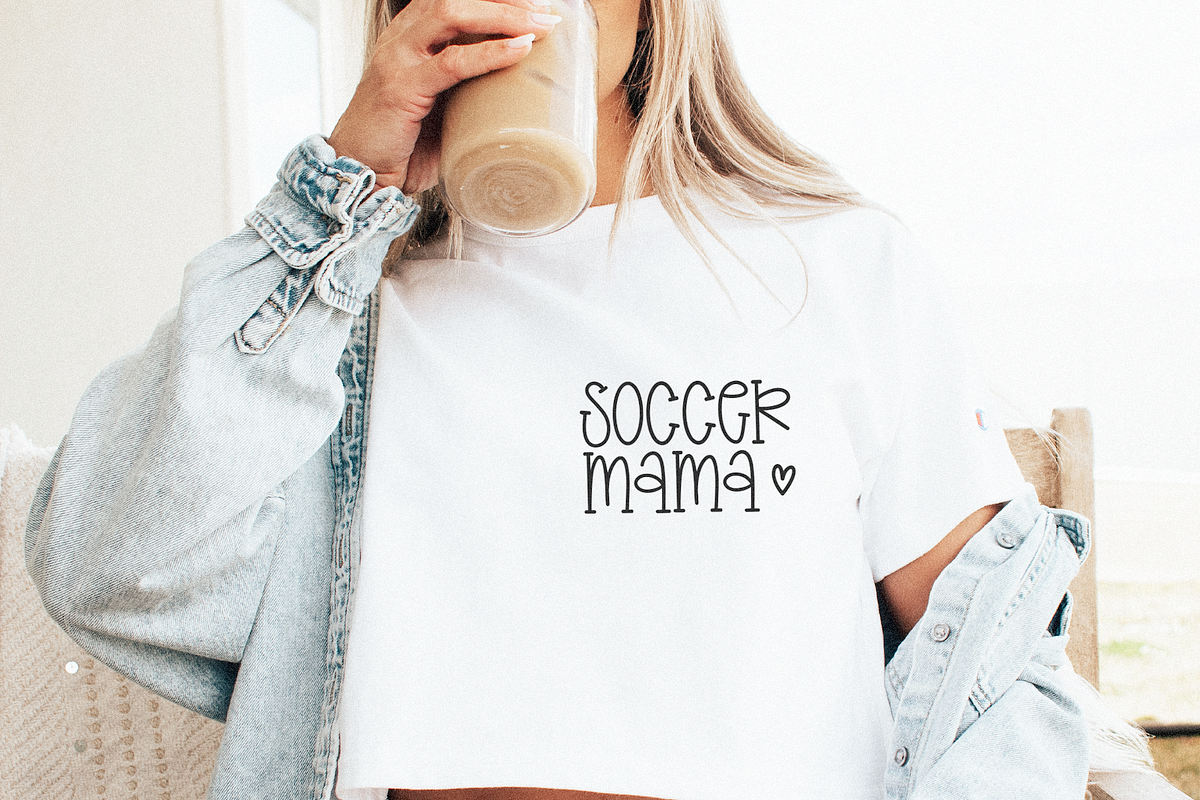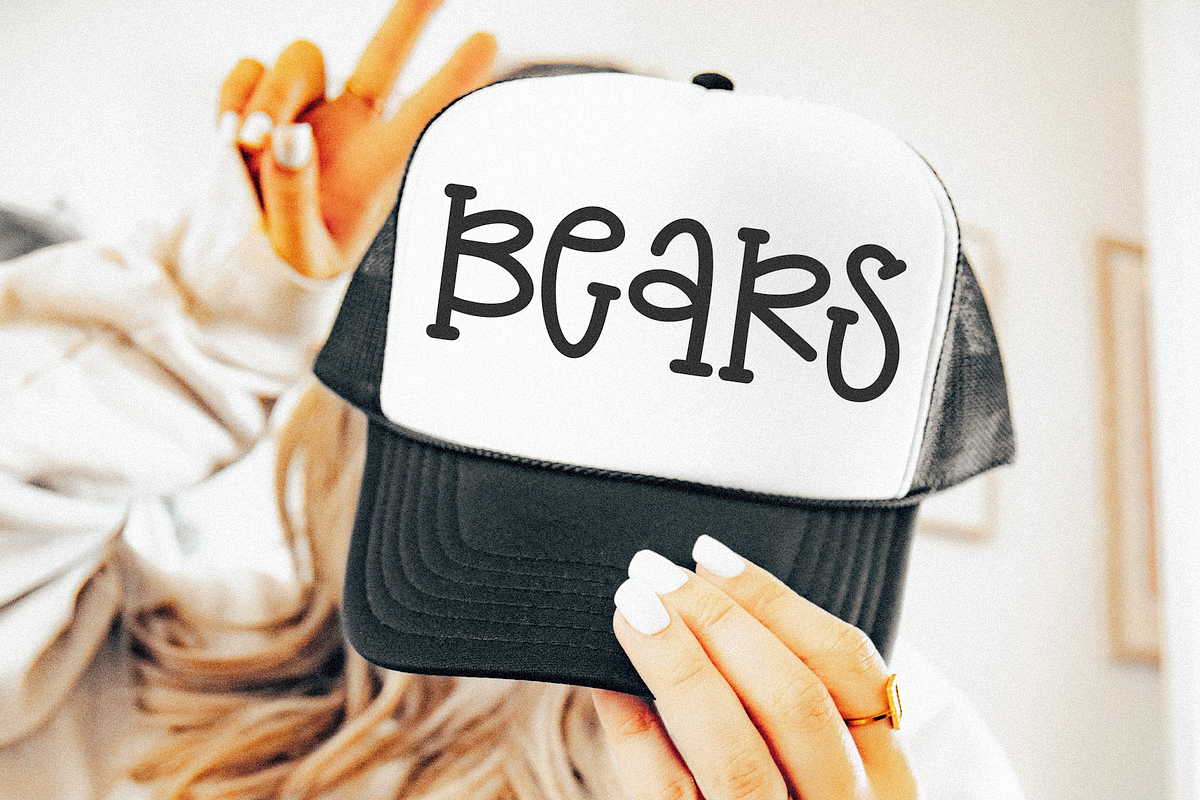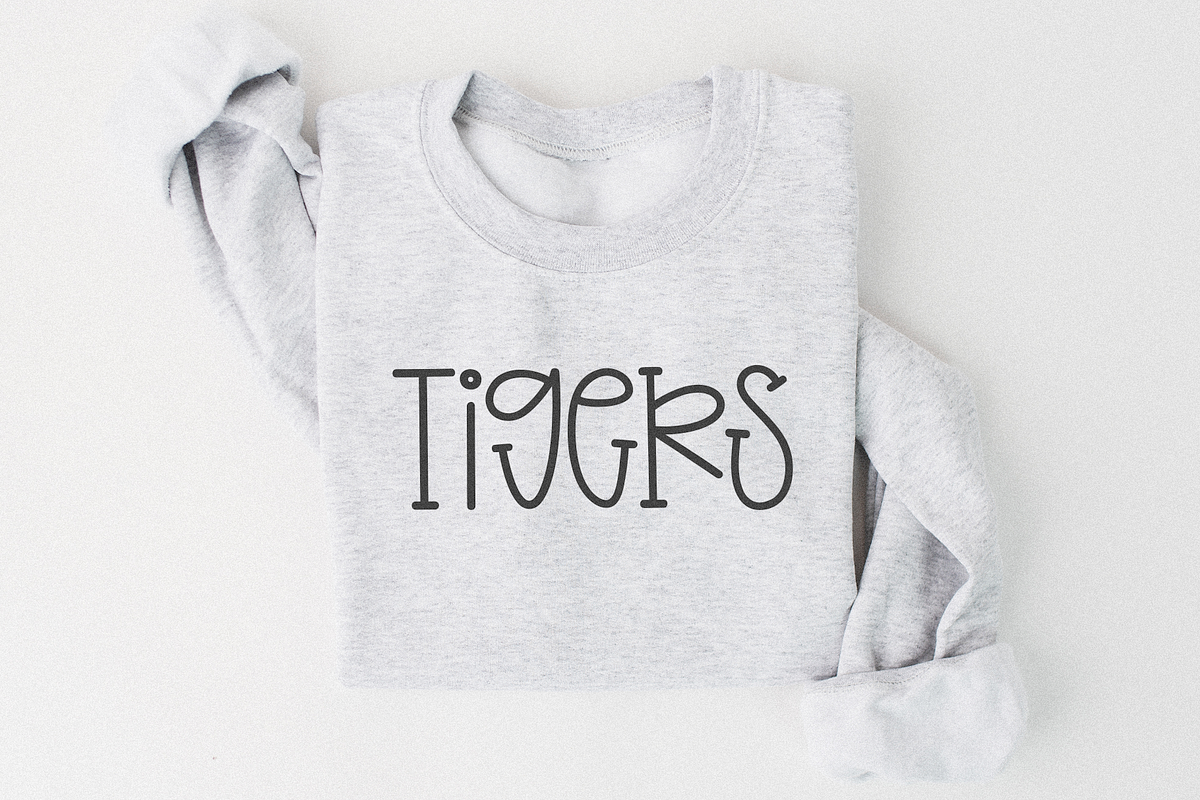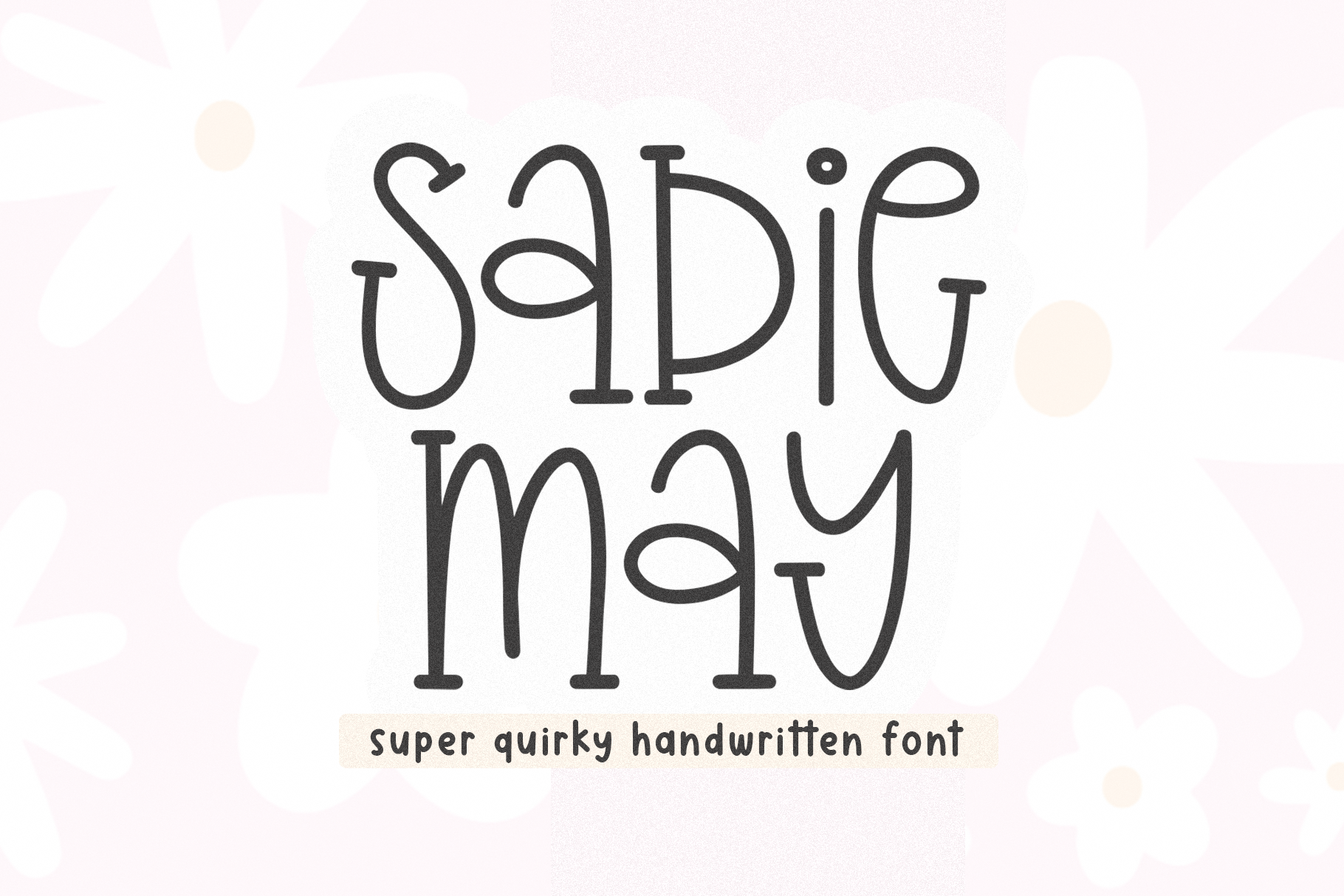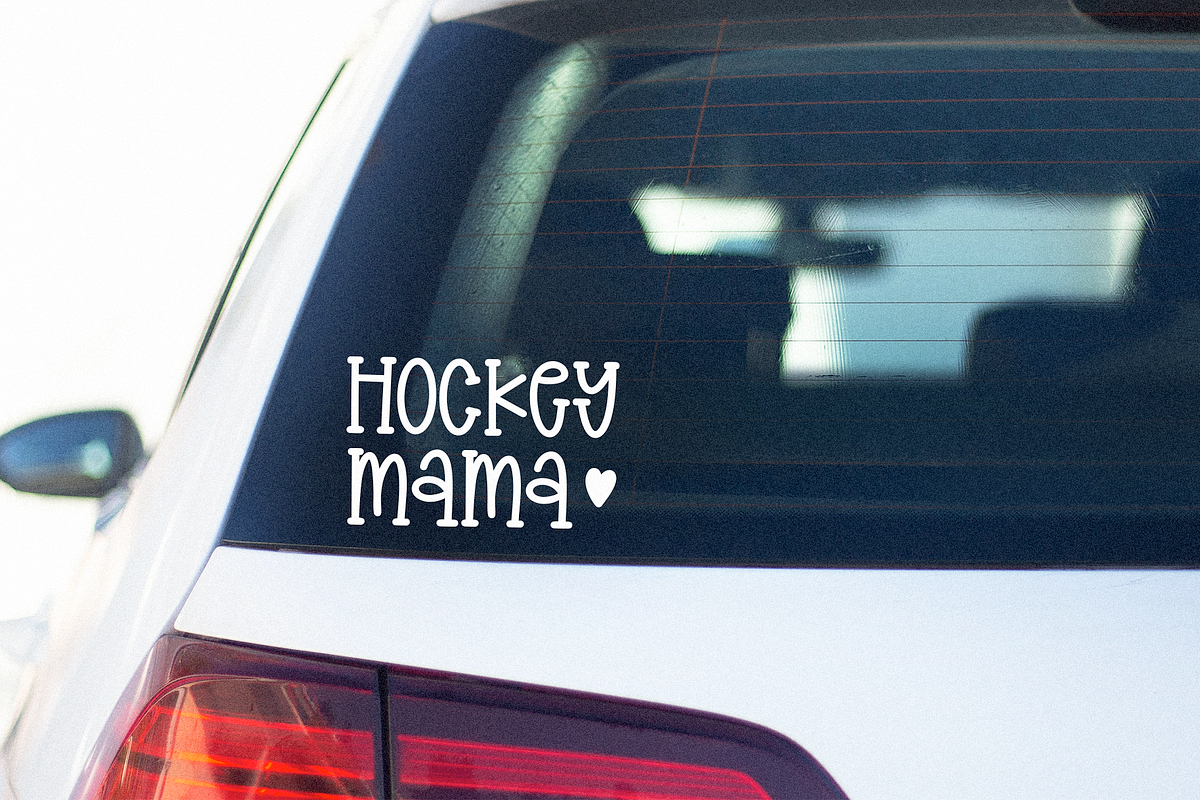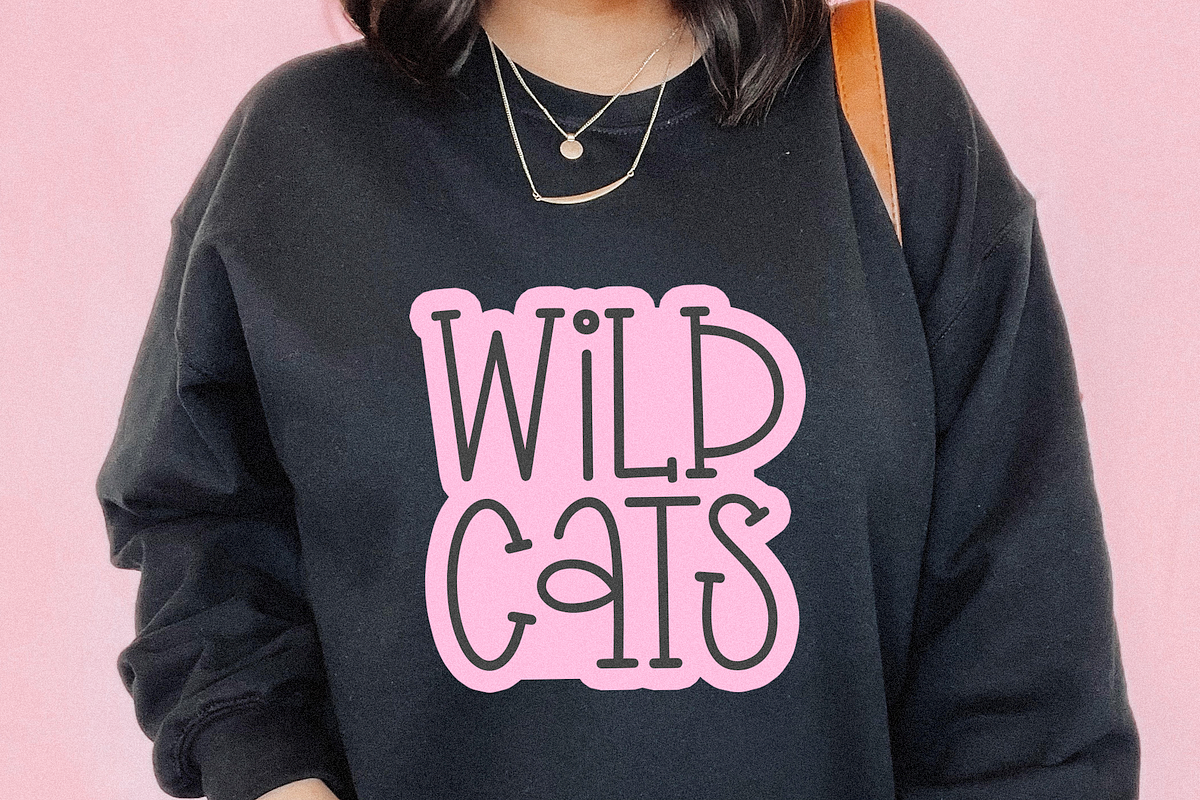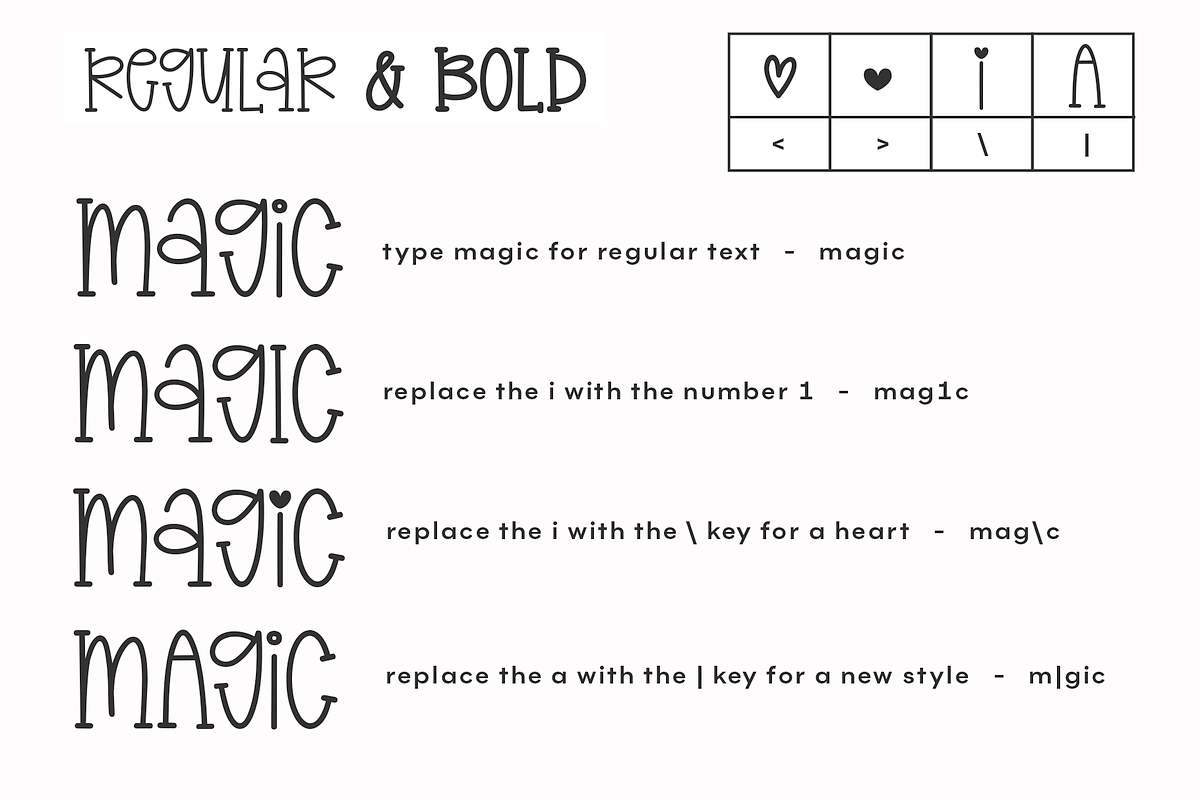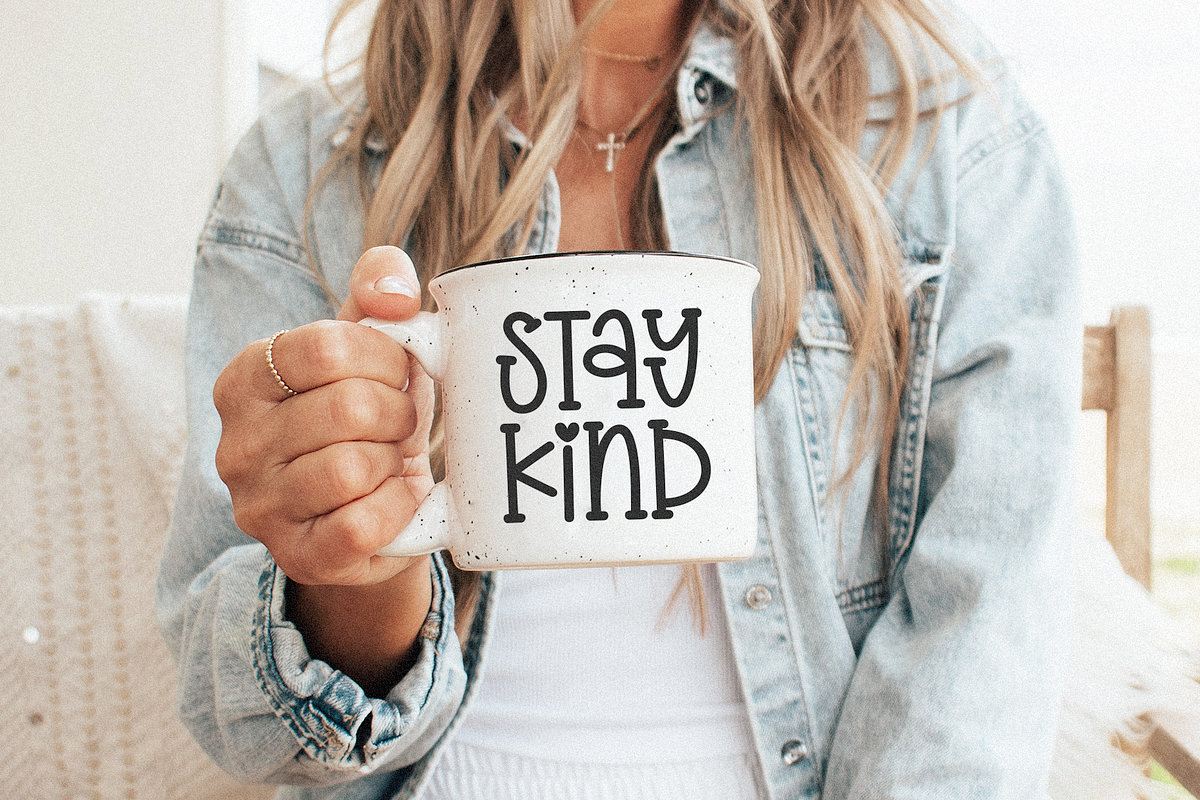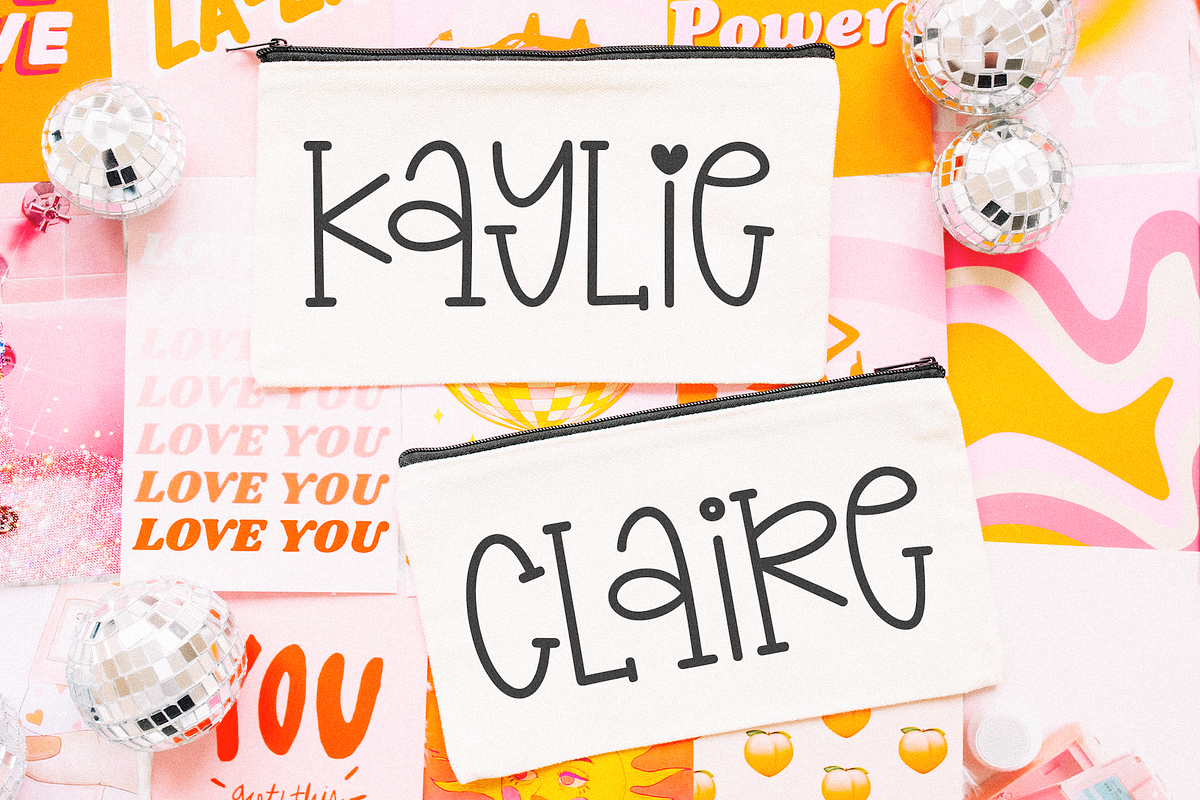
Sadie May | Quirky Fun Font
Sadie May is a super cute and quirky font!
This font is perfect for cricut, canva, logos, shirts, sports shirts, mugs, stickers, teachers, procreate, goodnotes and more!